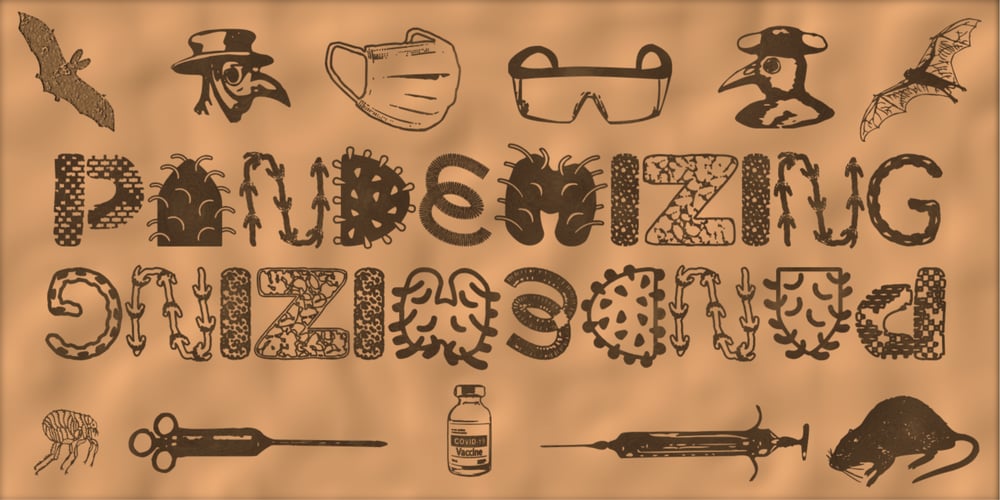
Pandemizing
Pandemizing font
Pandemizing Font Family was designed by Heikki Morgan Hämäläinen and published by Morganismi. Pandemizing contains 1 styles and family package options. Pandemizing is a decorative font with microbe-like letters and additional medical figures. It reminds you of the importance of healthcare. Supports multiple languages.